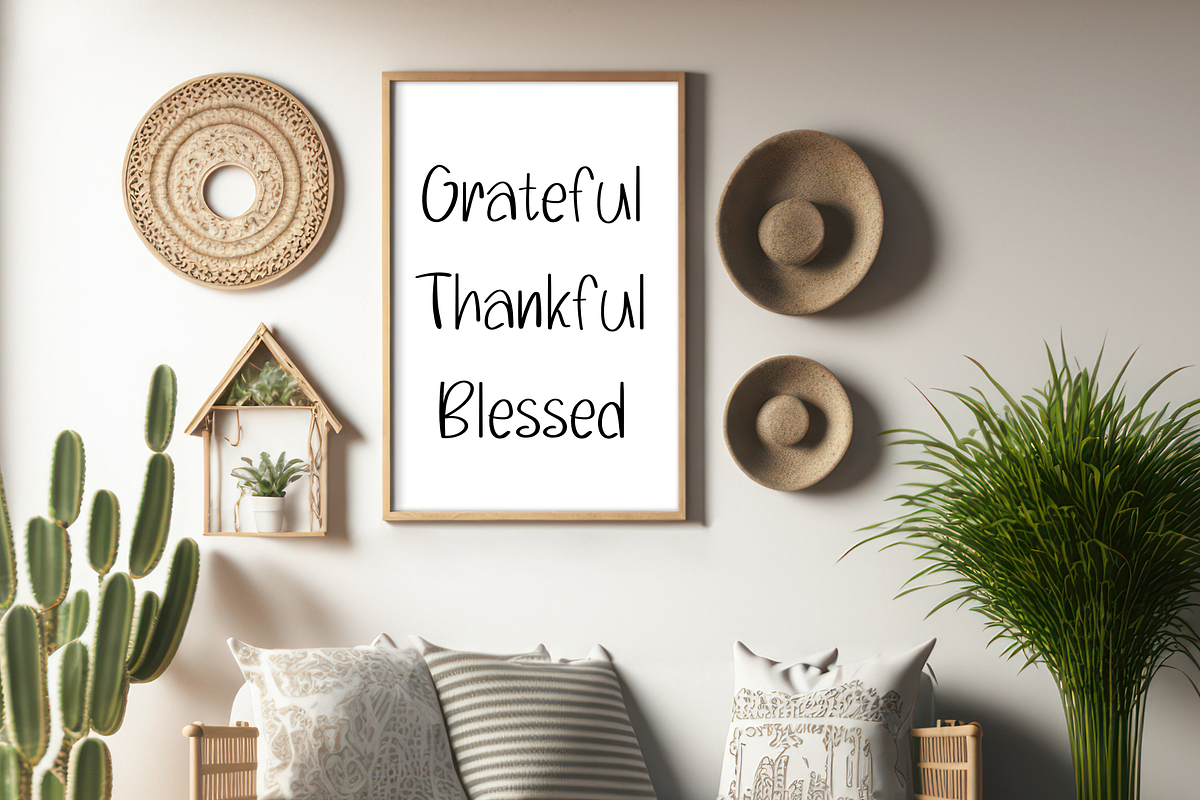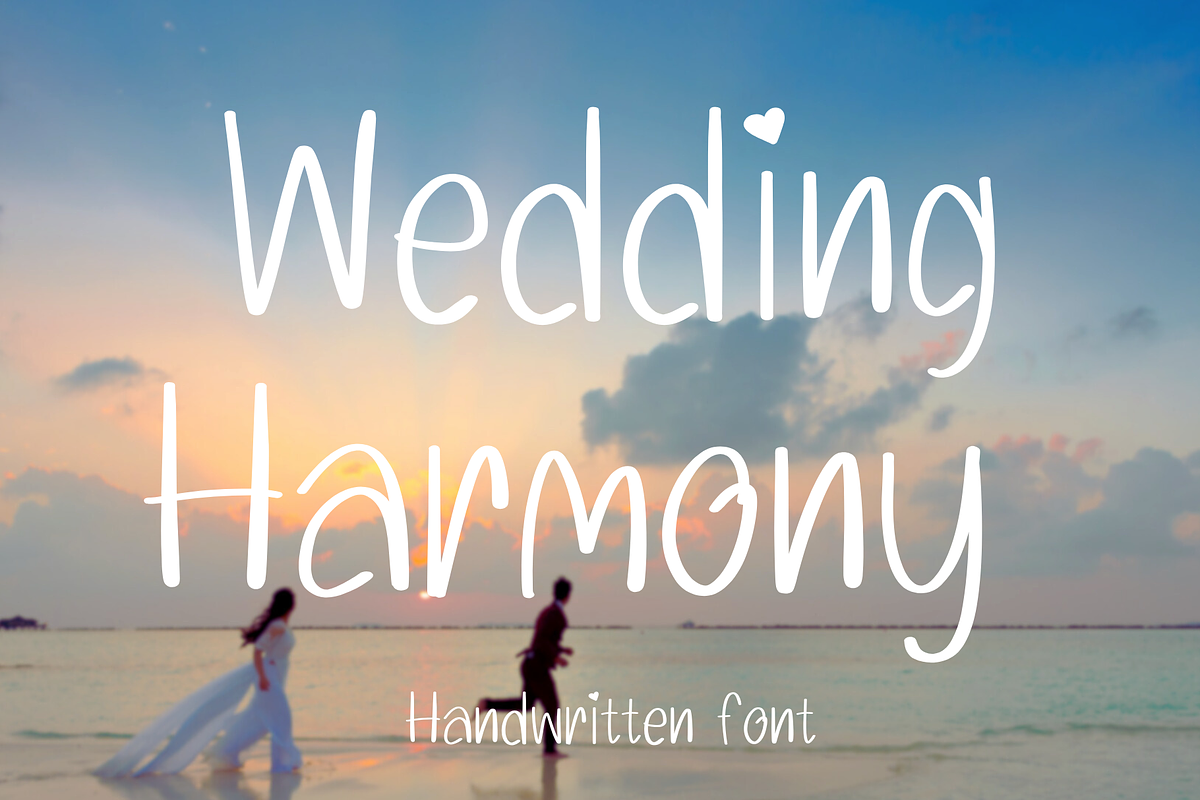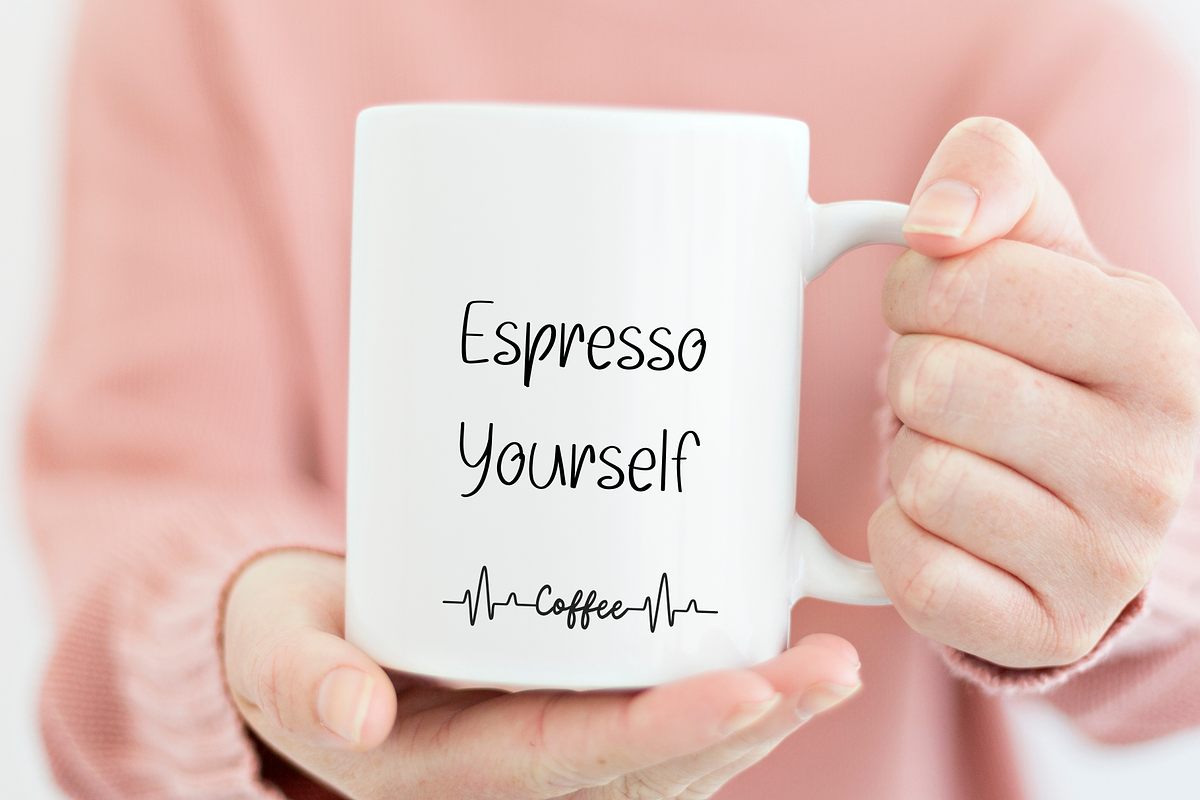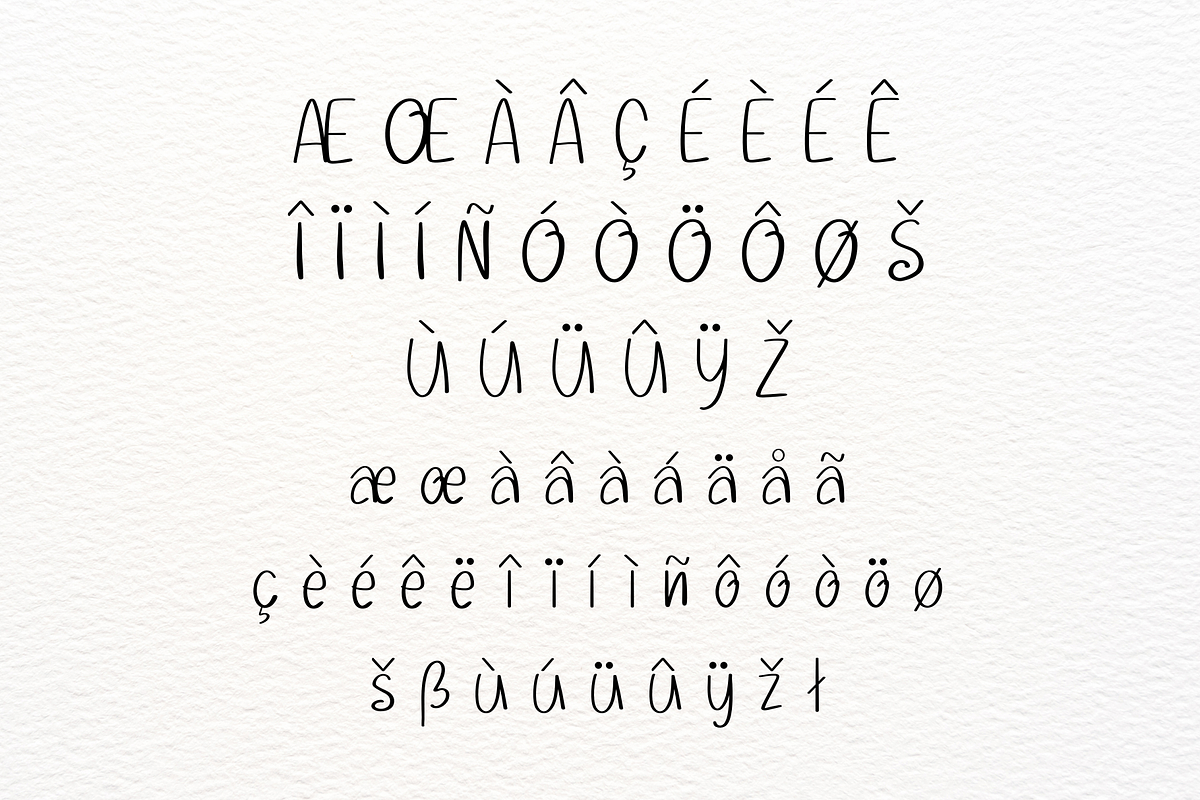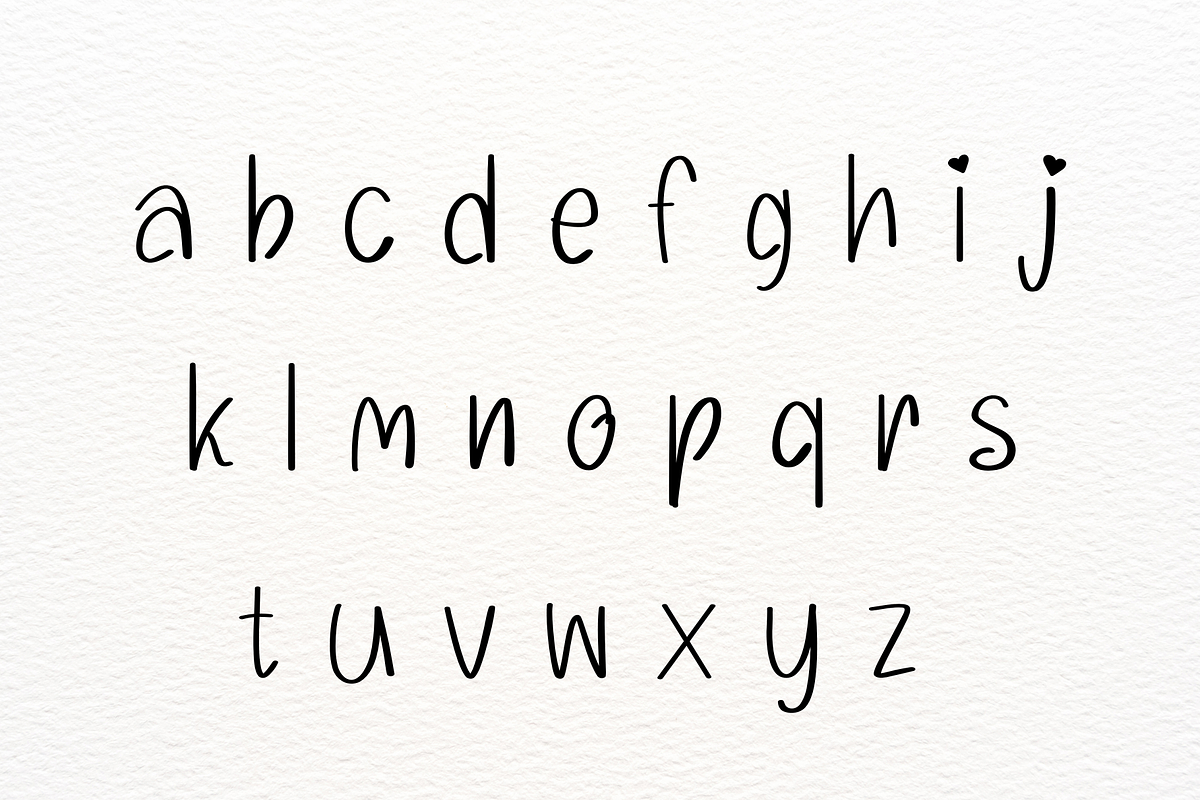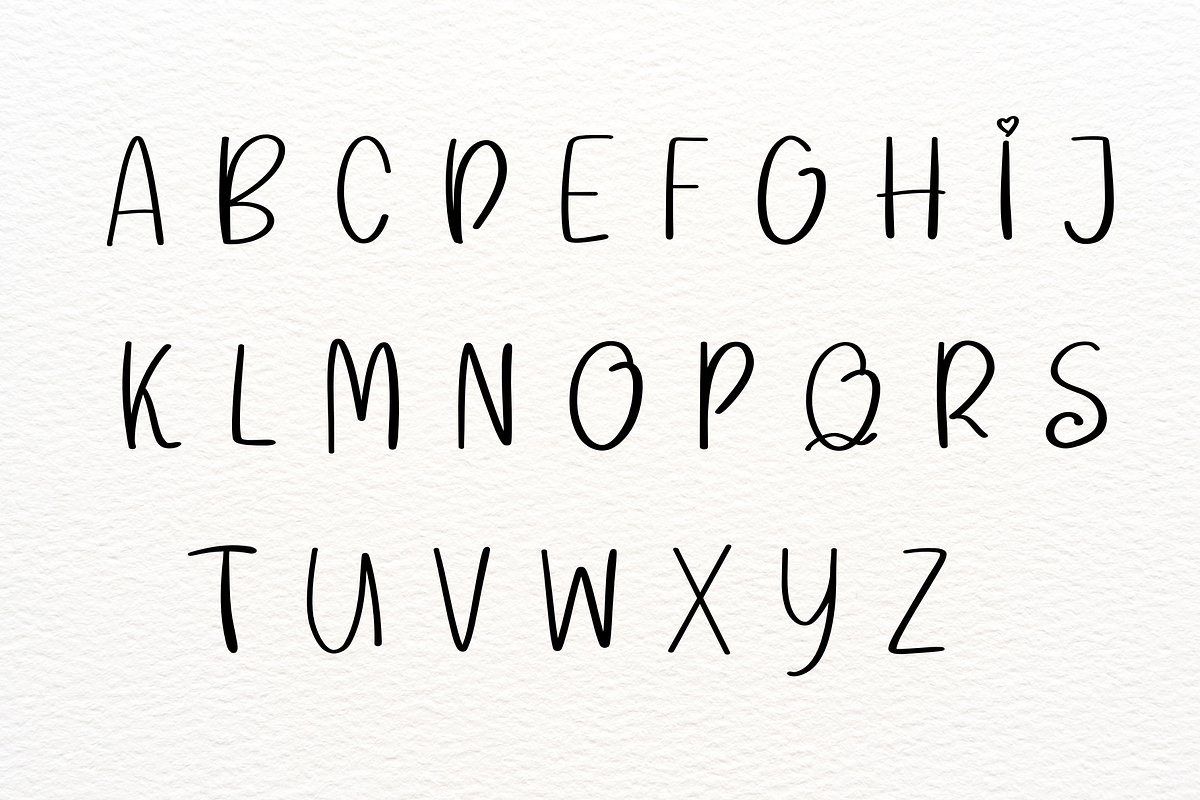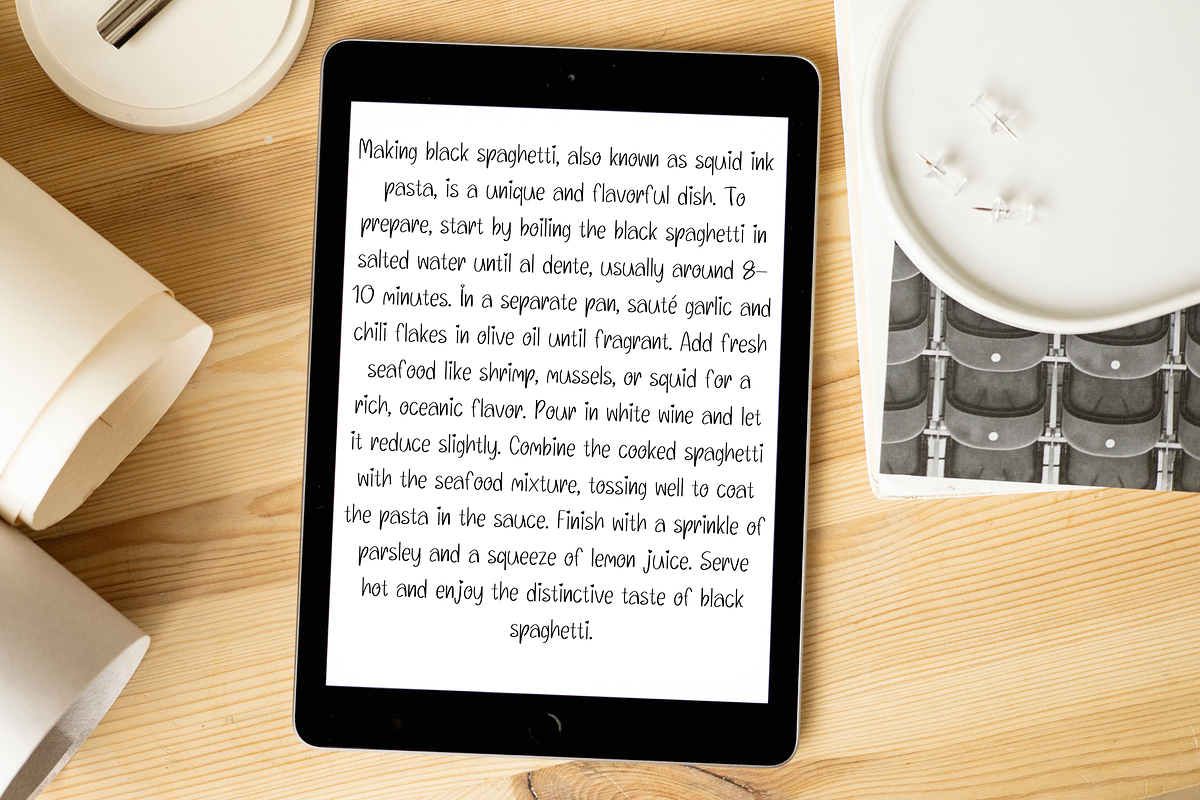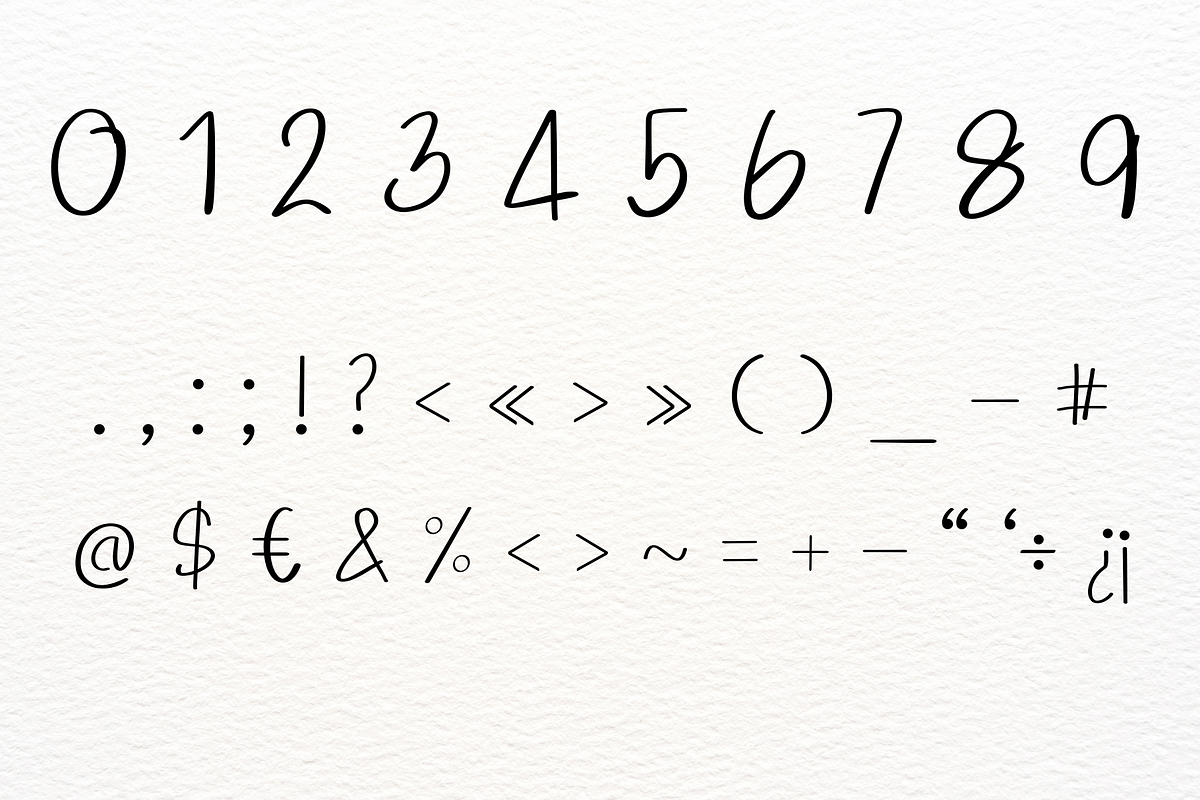
Wedding harmony
Wedding Harmony is a graceful handwritten font designed to bring elegance and warmth to your special moments. With its smooth curves, delicate strokes, and a touch of charm, this font is ideal for wedding invitations, save-the-date cards, event programs, or any romantic project. Its timeless and clean design ensures versatility while maintaining a personal, heartfelt touch. Let Wedding Harmony add a magical vibe to your celebrations and creative work.